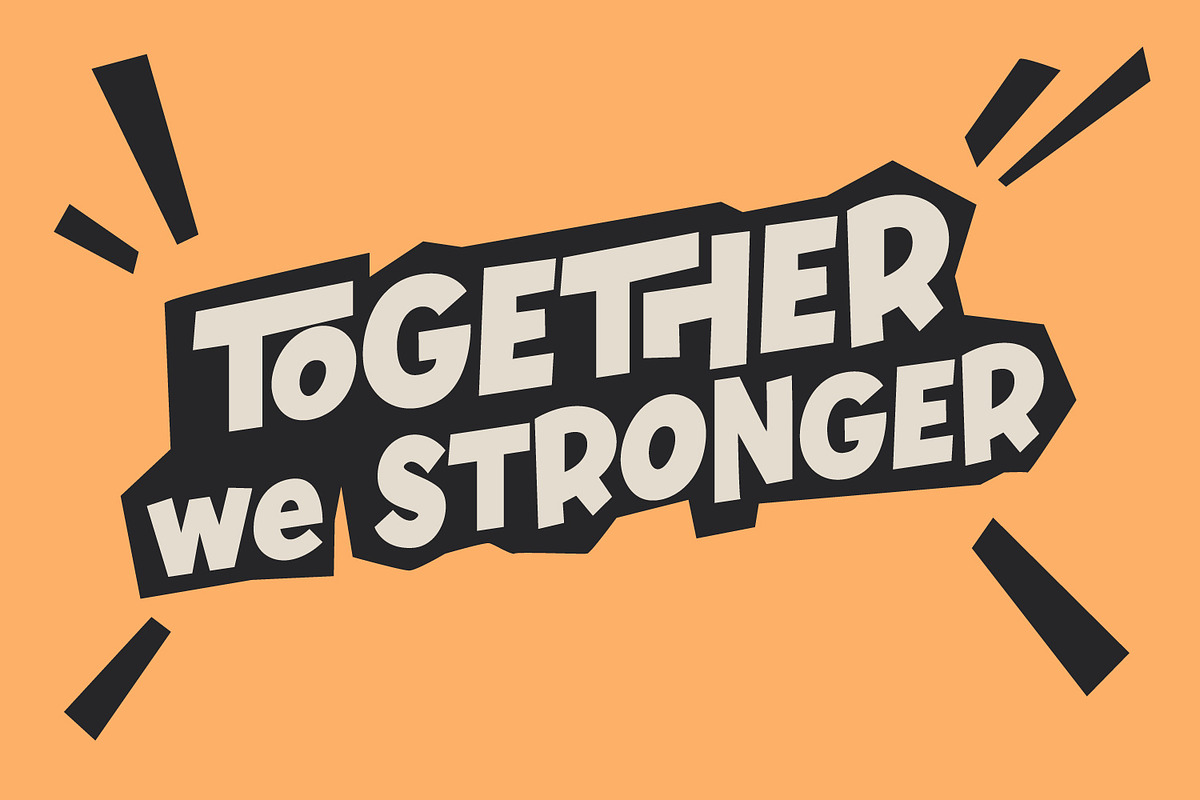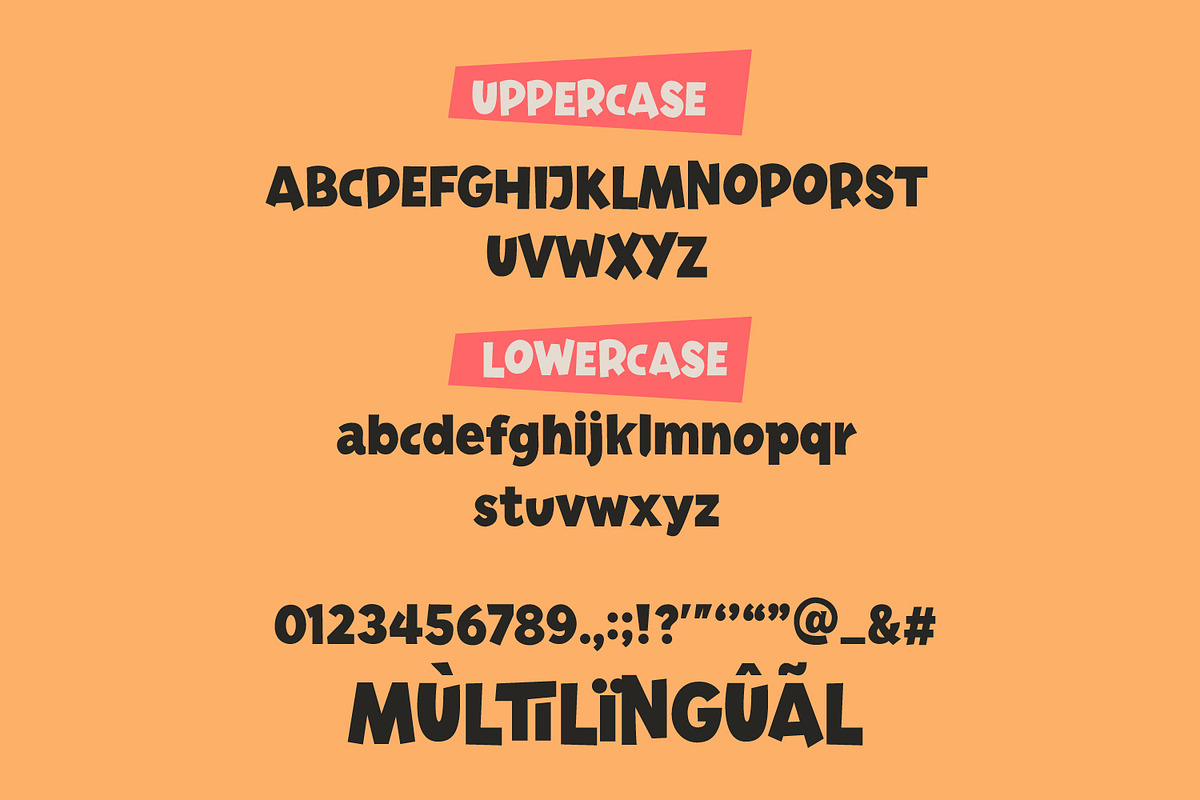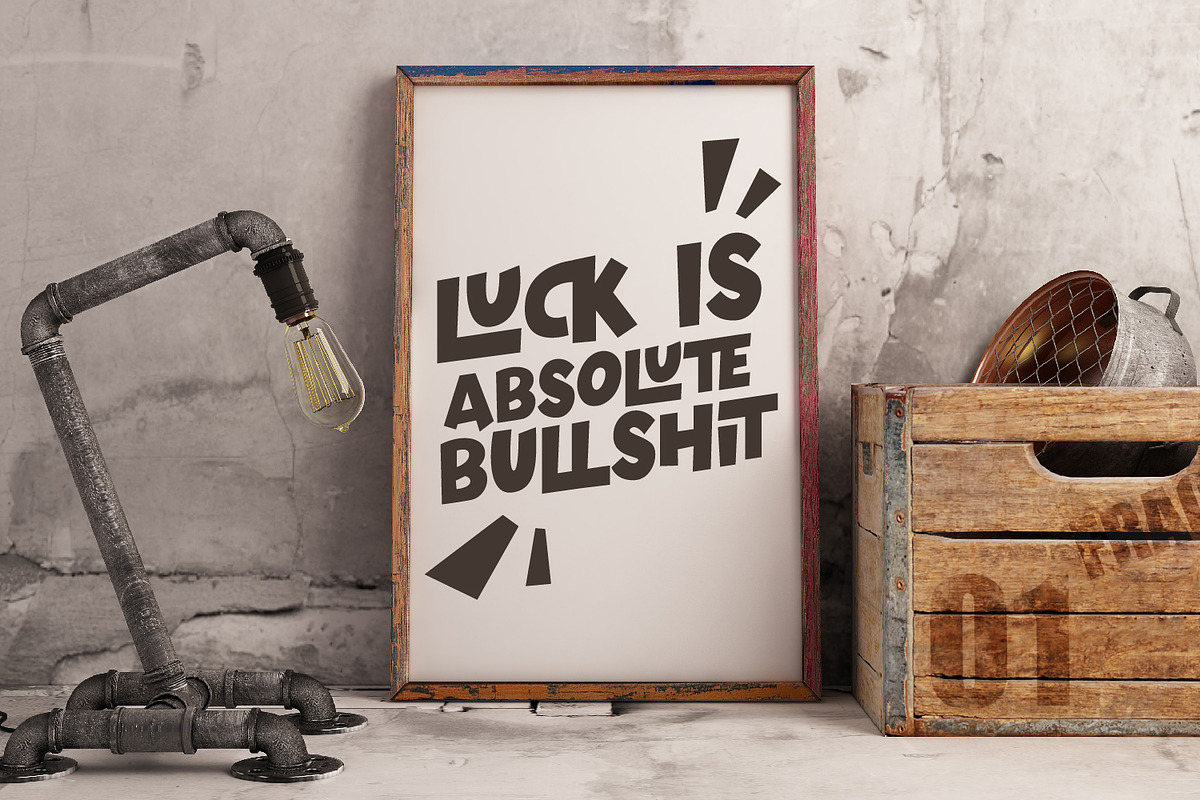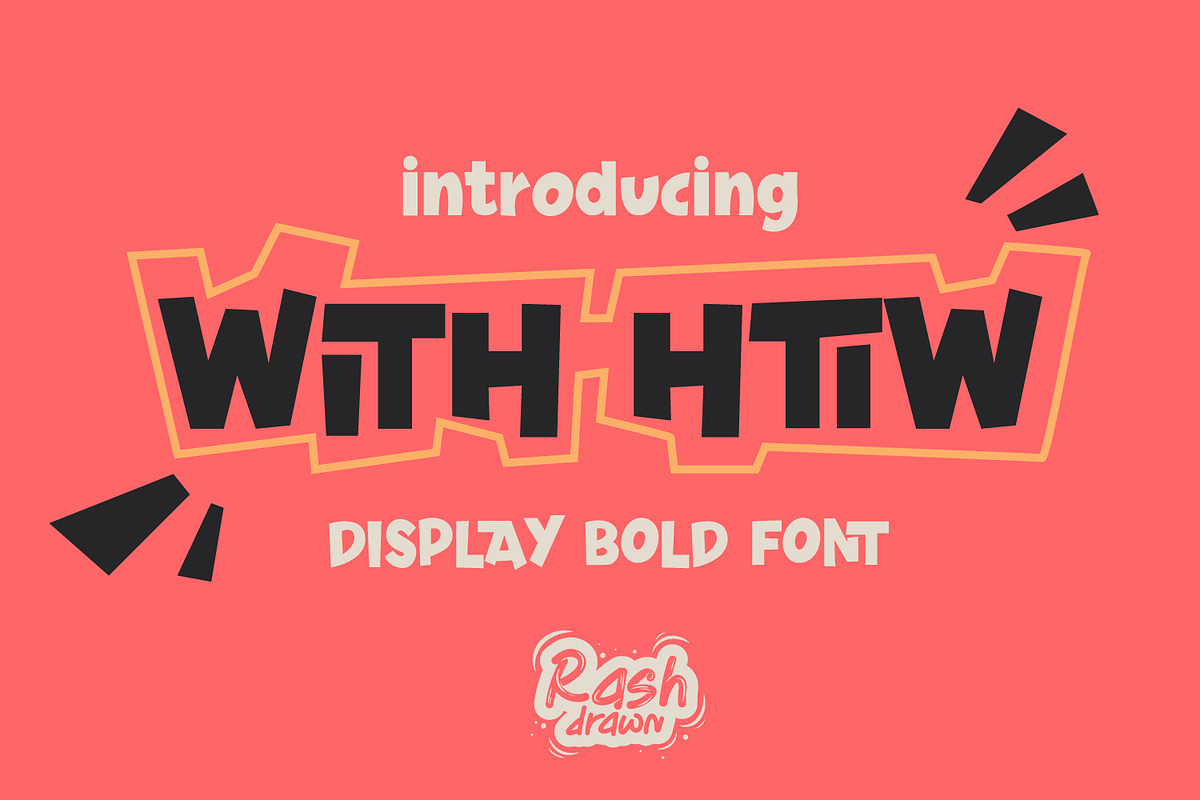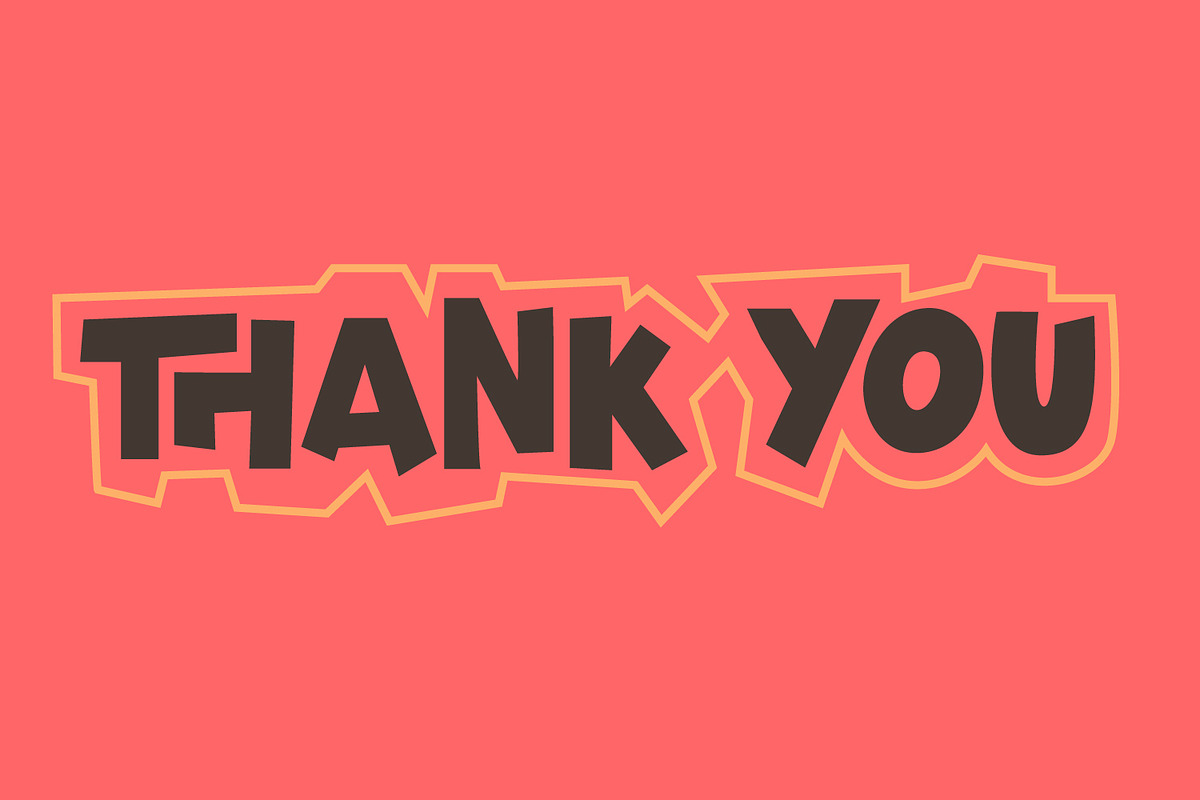
WITH HTIW – Playful Bold Display
WITH HTIW is a bold and playful hand-drawn display font designed to bring an energetic, expressive, and slightly rebellious character to your designs.
With its chunky letterforms, irregular shapes, and comic-inspired appearance, this typeface works especially well for eye-catching headlines, posters, logos, apparel, stickers, packaging, social media graphics, merchandise, and other creative projects.
The font combines a bold display style with a hand-crafted feel, making your typography look more dynamic and distinctive than a conventional clean typeface.